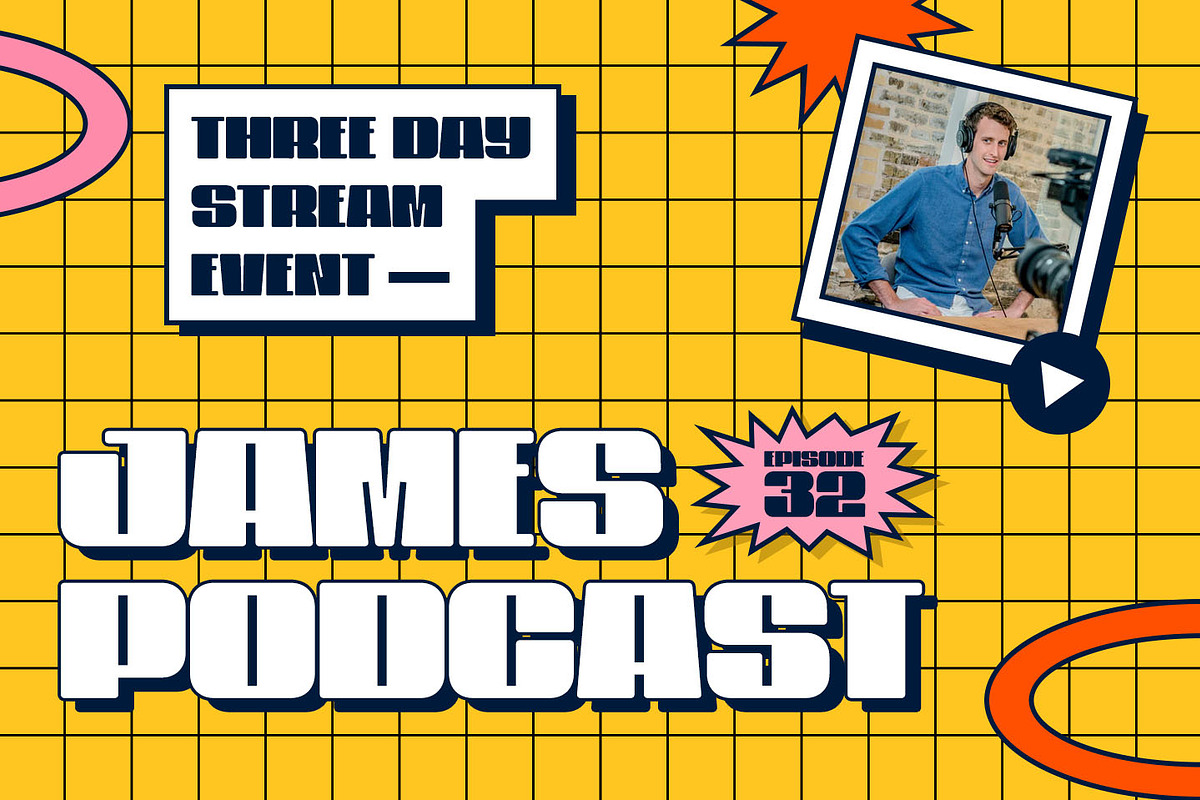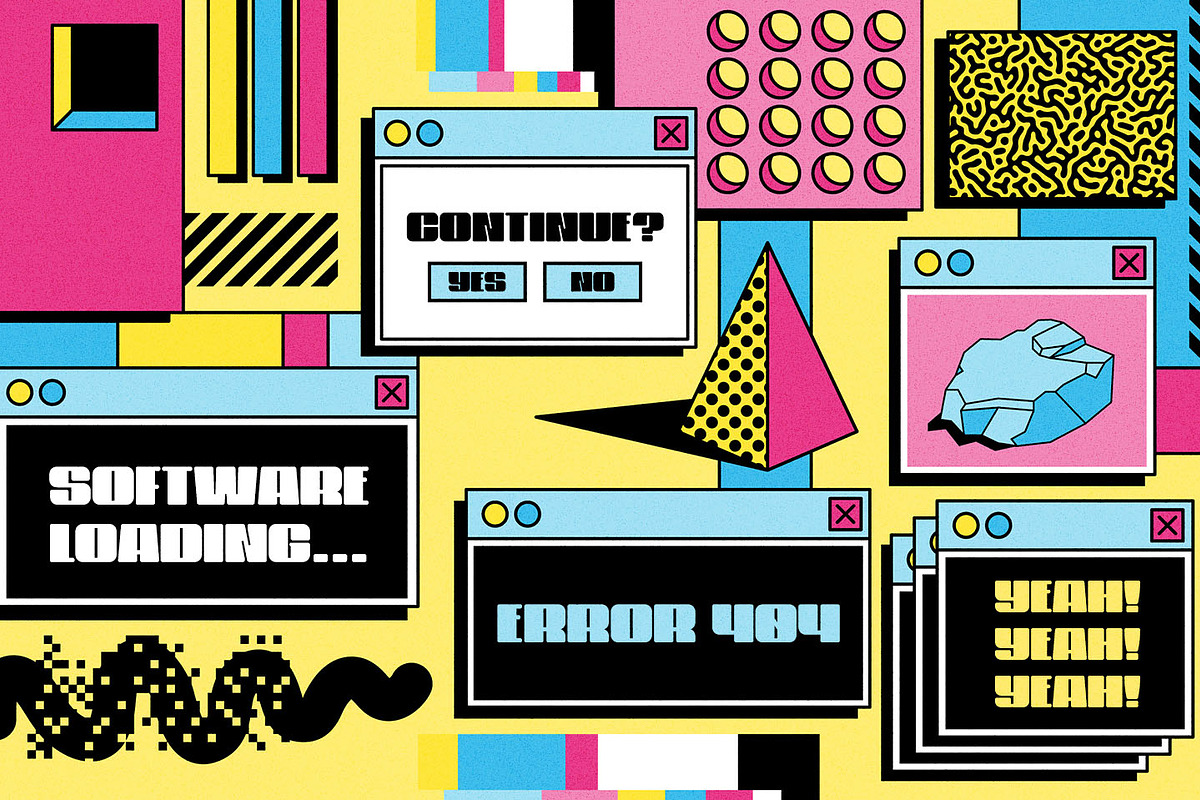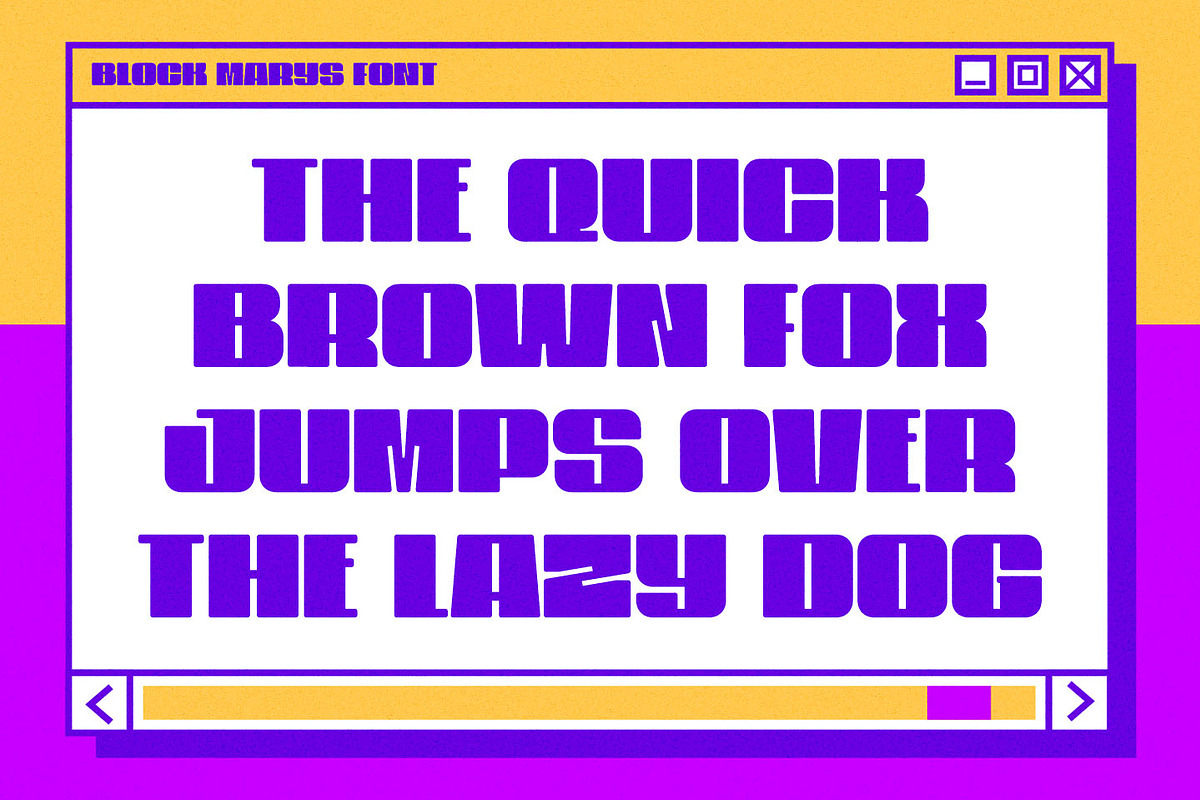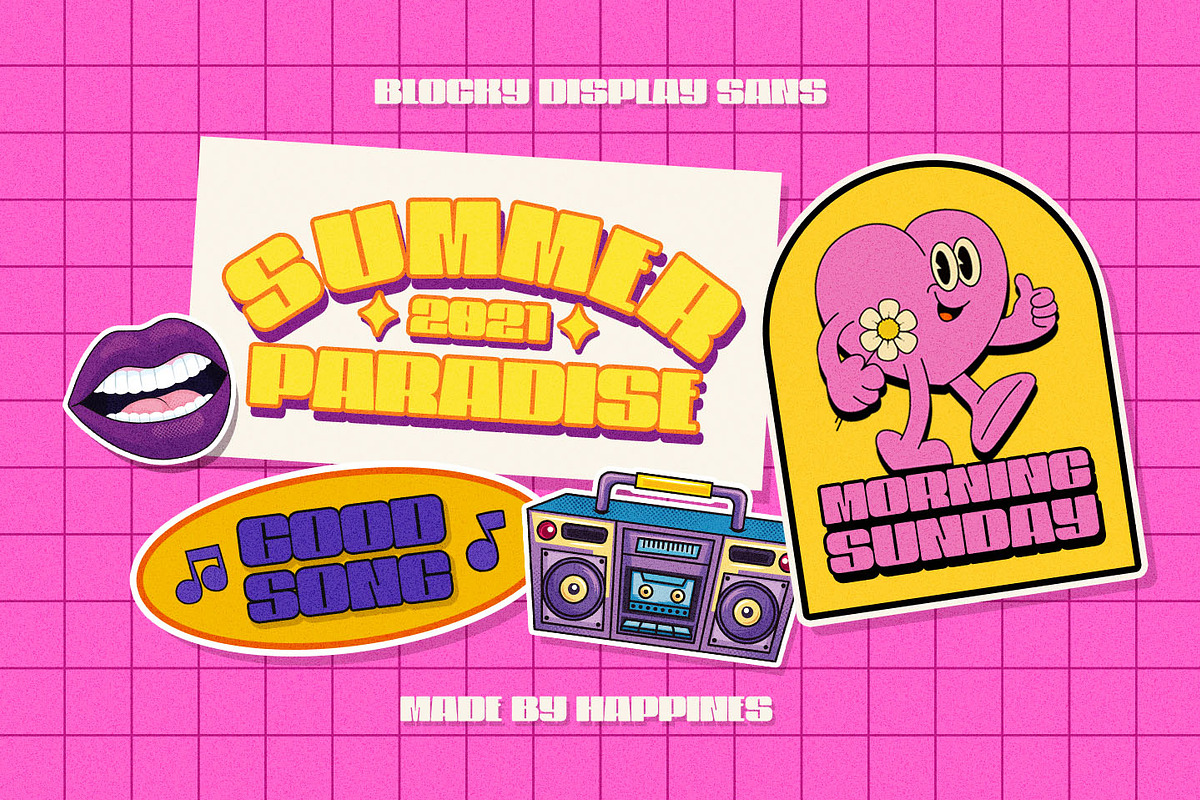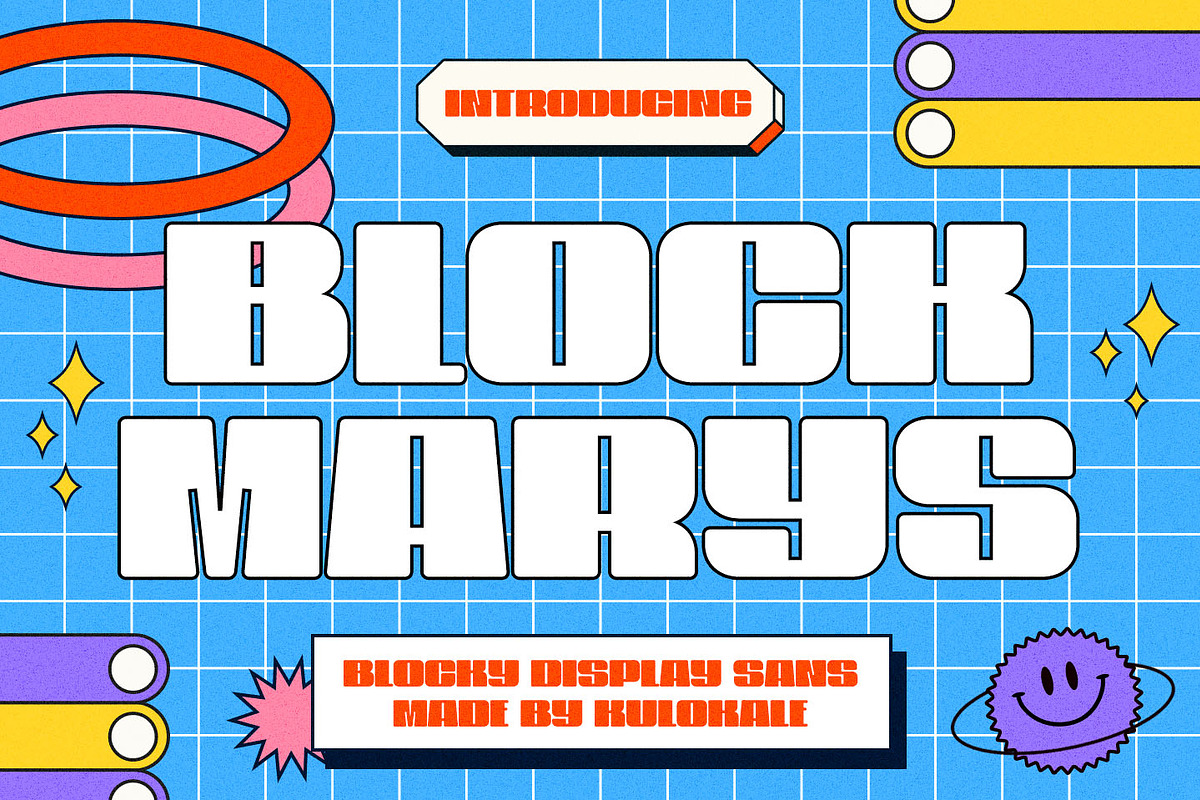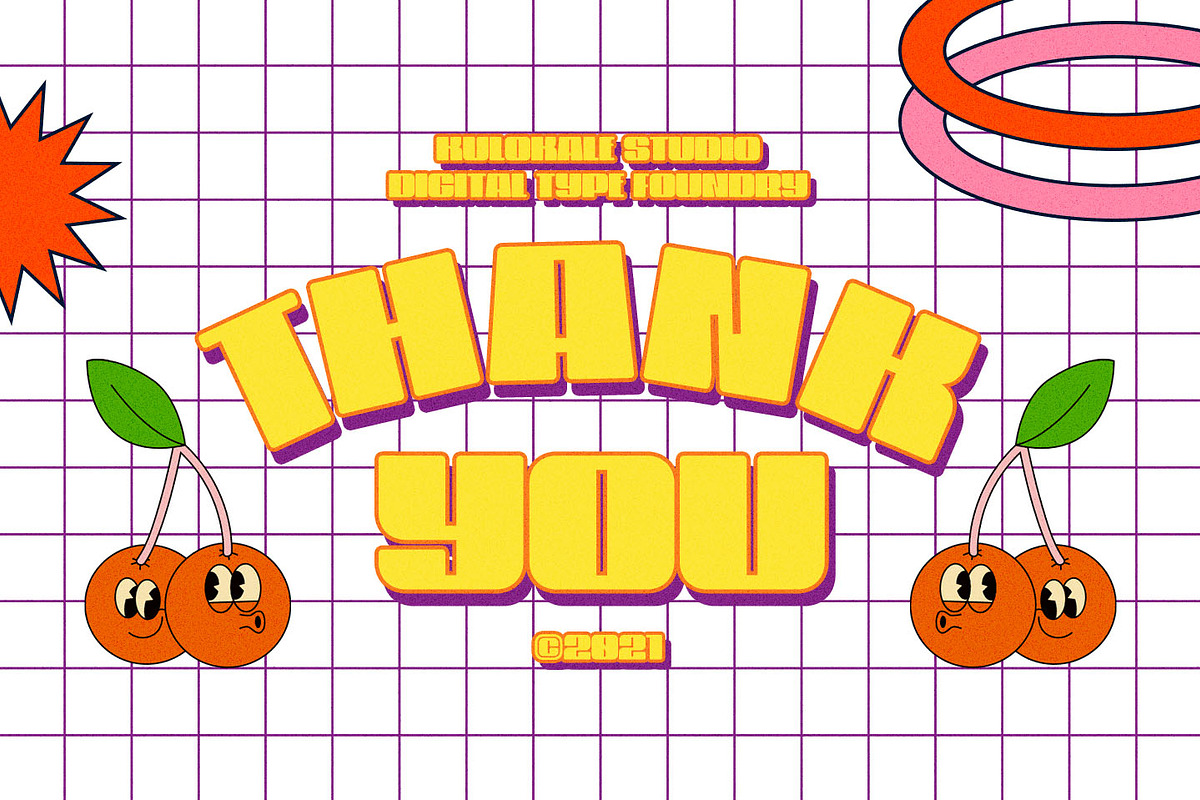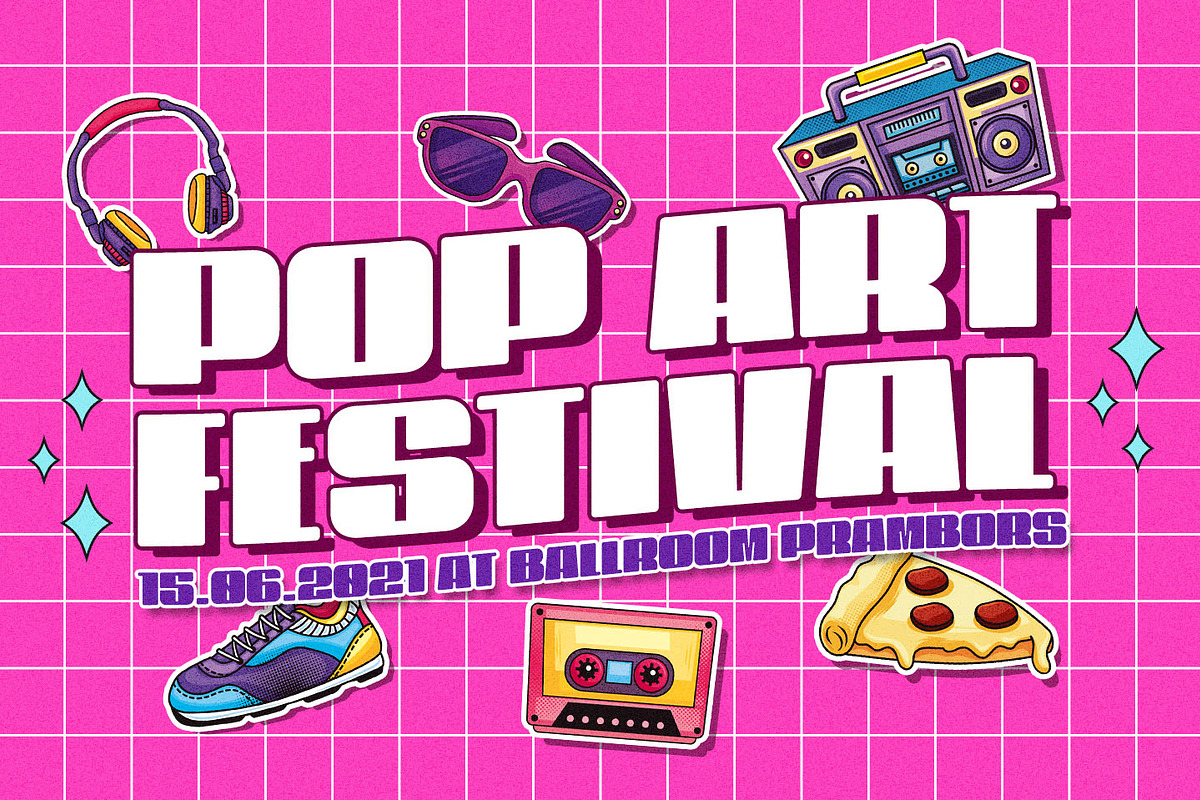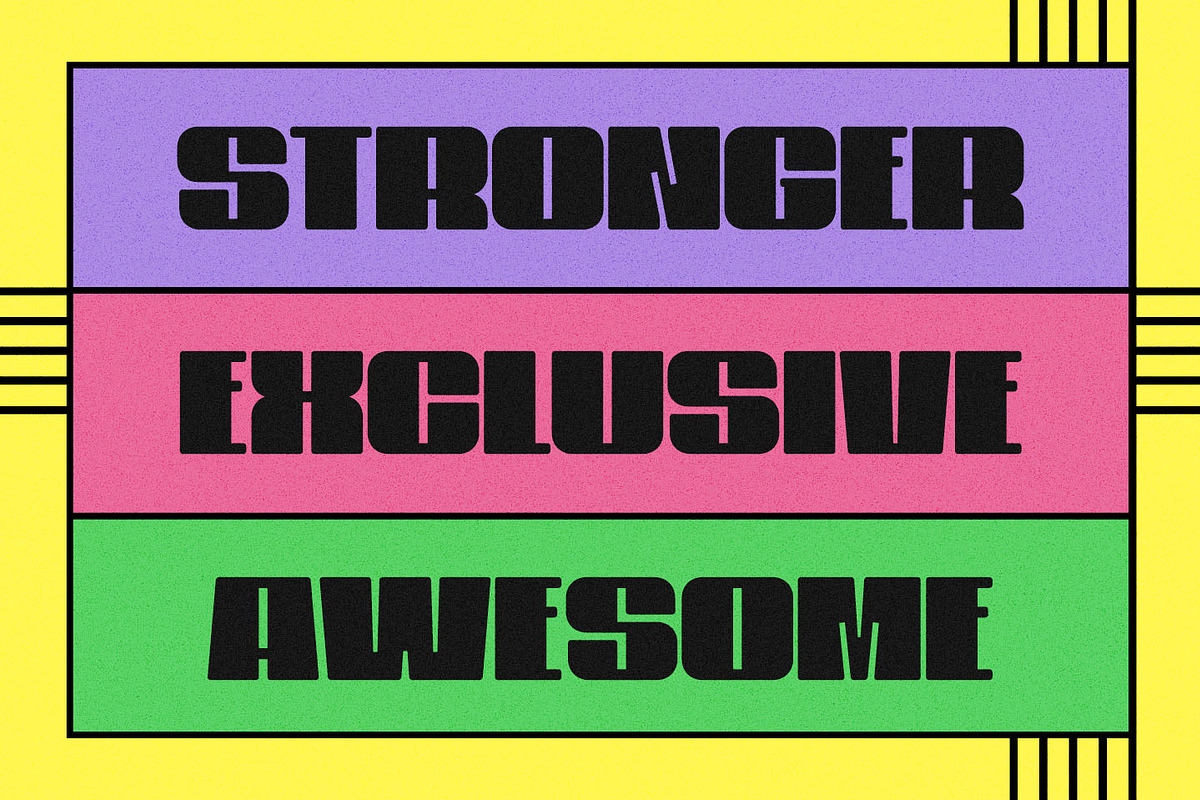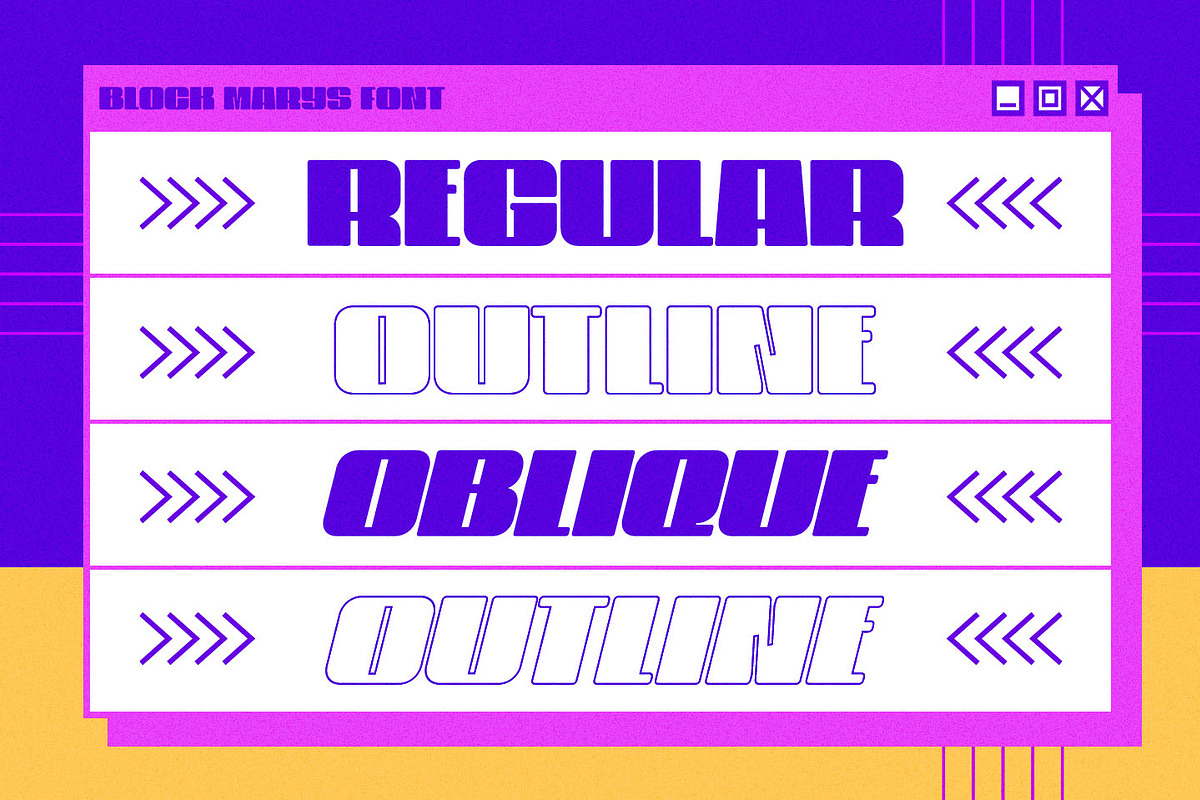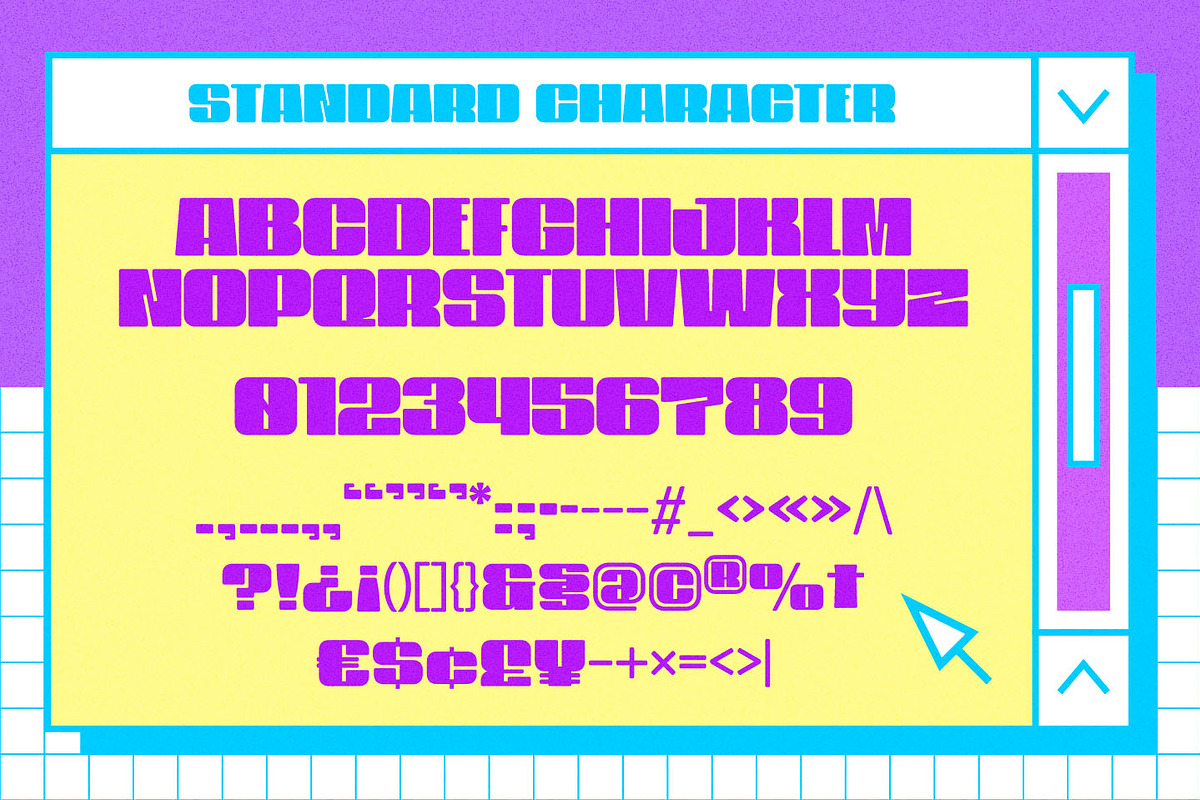
Block Marys - Blocky Display Sans
Block Marys is a blocky display sans font. Block Marys is well-suited for advertising, branding, logotypes, packaging, titles, headlines and editorial design. This font comes in 4 styles, Regular, Oblique, Outline, and Outline Oblique Version.